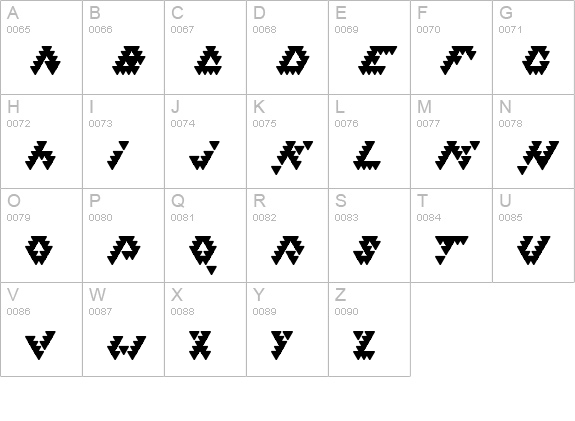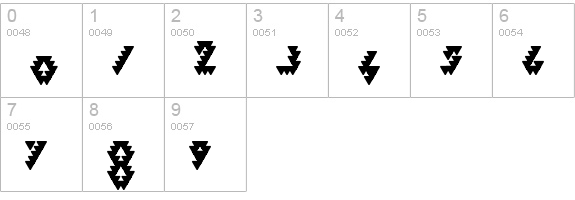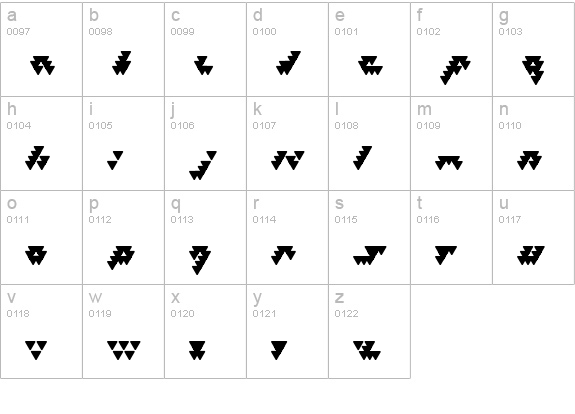
Bizar Loved Triangles is a striking and unique display font that is sure to make your designs stand out. With its angular shapes and playful design, this font is perfect for adding a touch of quirkiness to any project. What makes Bizar Loved Triangles even more appealing is that it is available for free download at FontsMarket.com. Yes, you read that right - this eye-catching font can be yours at no cost, making it a must-have addition to your font collection. Whether you're working on a poster, logo, or any other design project, Bizar Loved Triangles is sure to make a statement. Download it today and let your creativity shine with this one-of-a-kind font.